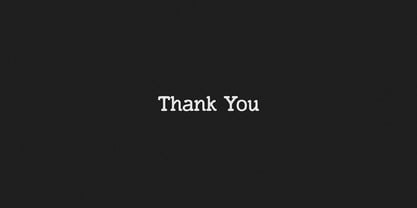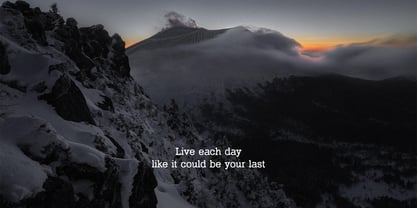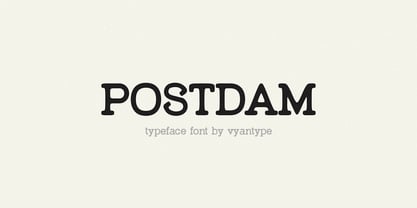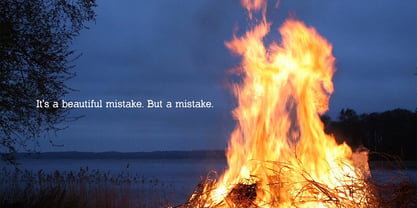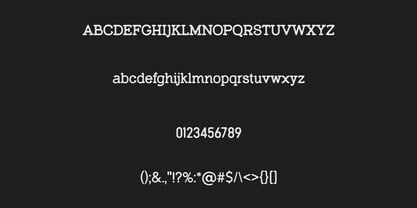
Postdam
by Vyantype Studio
The Postdam Font Family was designed by Hero Novyanto and published by Vyantype Studio. Postdam contains 1 styles. More about this family
This typeface draws inspiration from vintage typewriter fonts, embodying a classic design aesthetic. With its attractive multilingual variants, it is ideal for a wide range of applications. Designers can seamlessly integrate this font with illustrations or logos, particularly in vintage or classic styles. The font exudes a bold yet playful character, perfectly capturing the essence of timeless design while remaining relevant for contemporary needs. Its versatility makes it suitable for branding, packaging, and user interfaces, ensuring it meets the demands of modern design projects.
Designers: Hero Novyanto
Current Foundry: Vyantype Studio